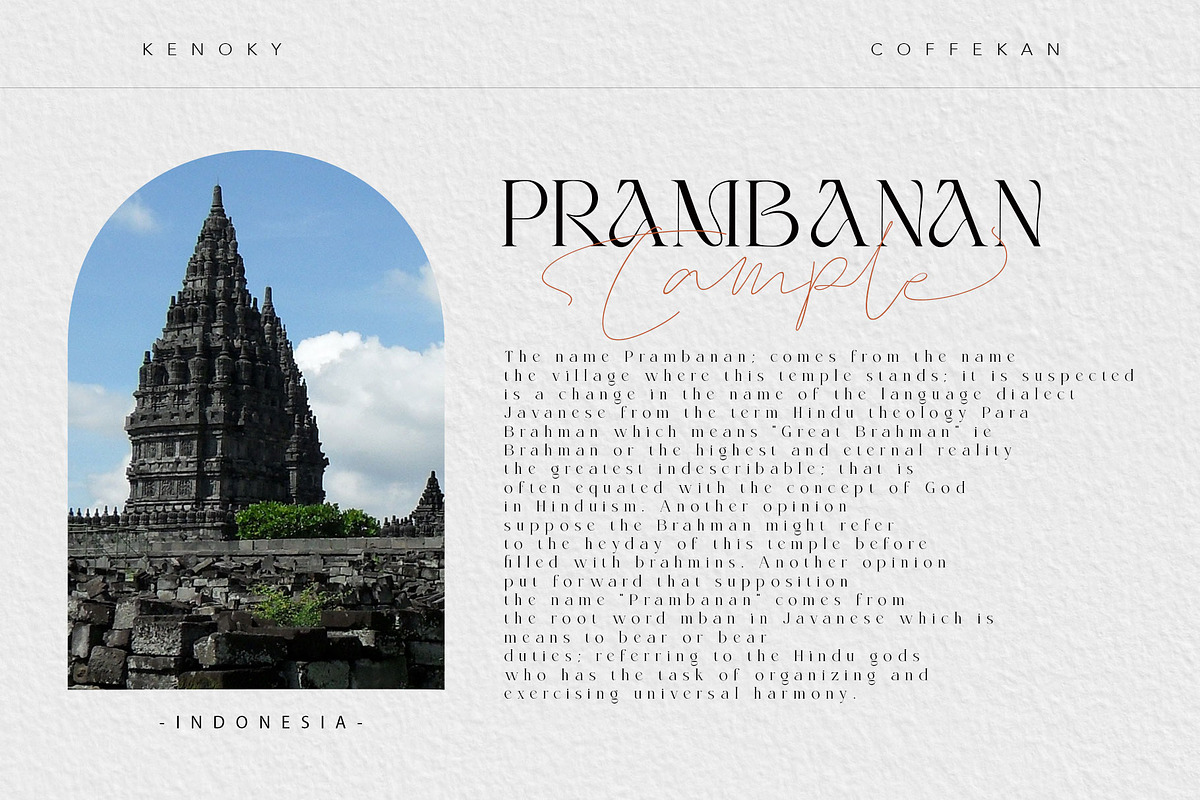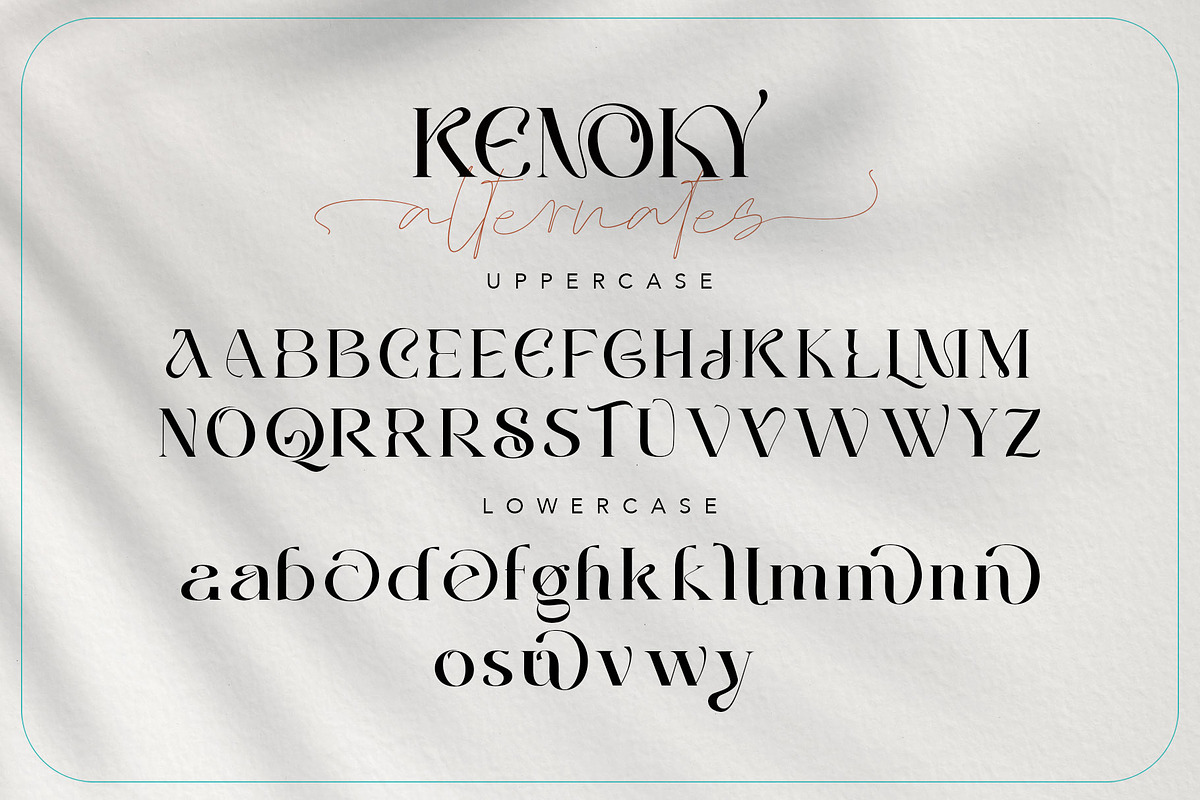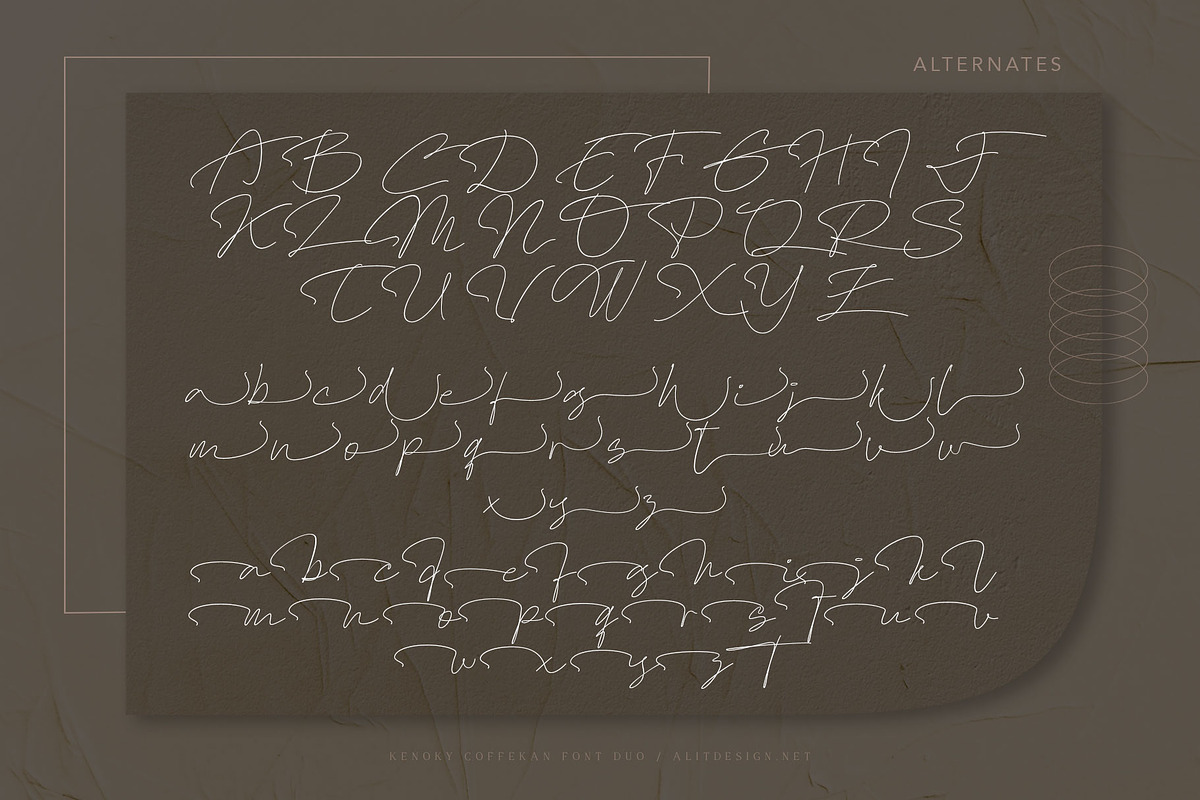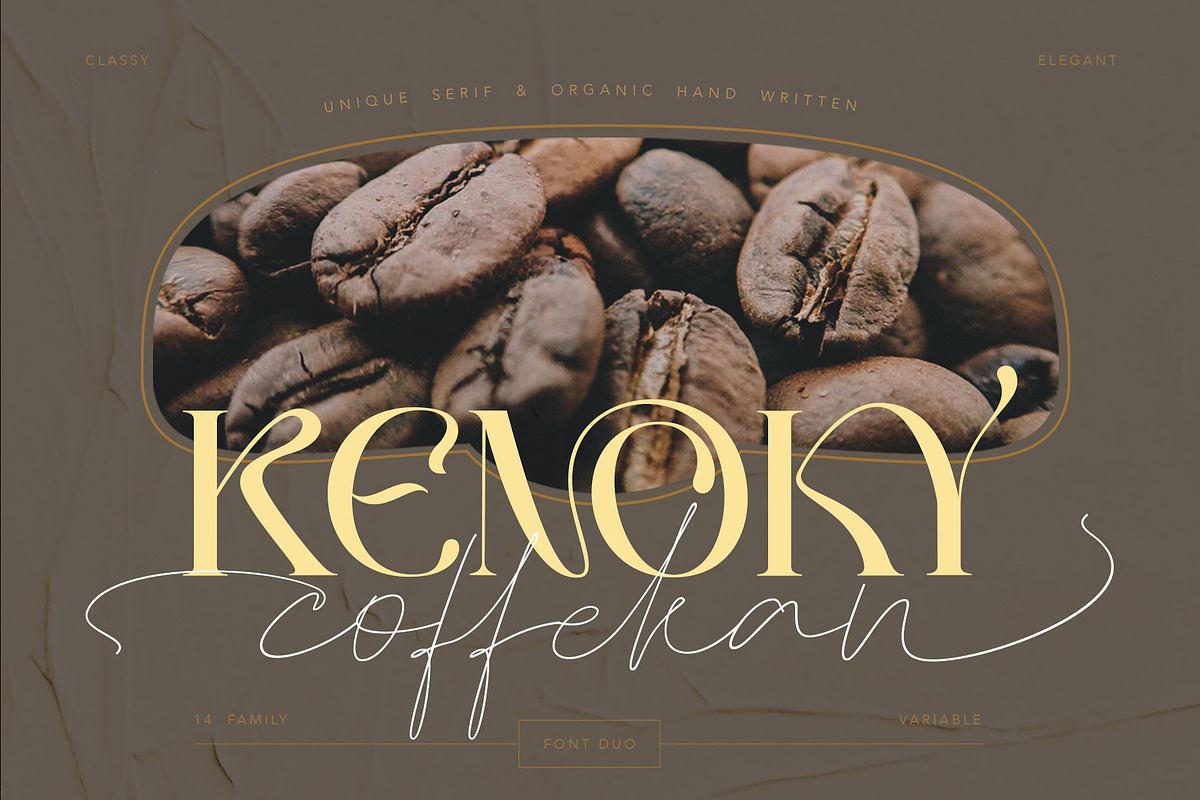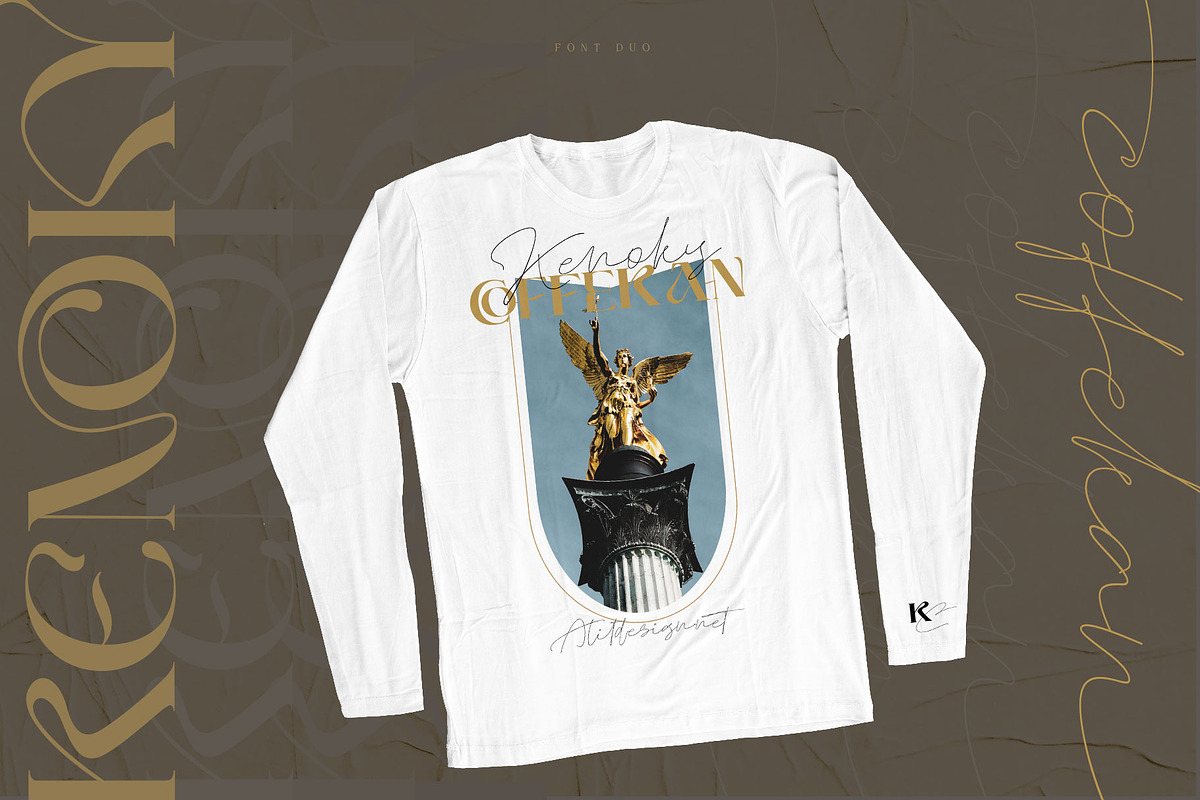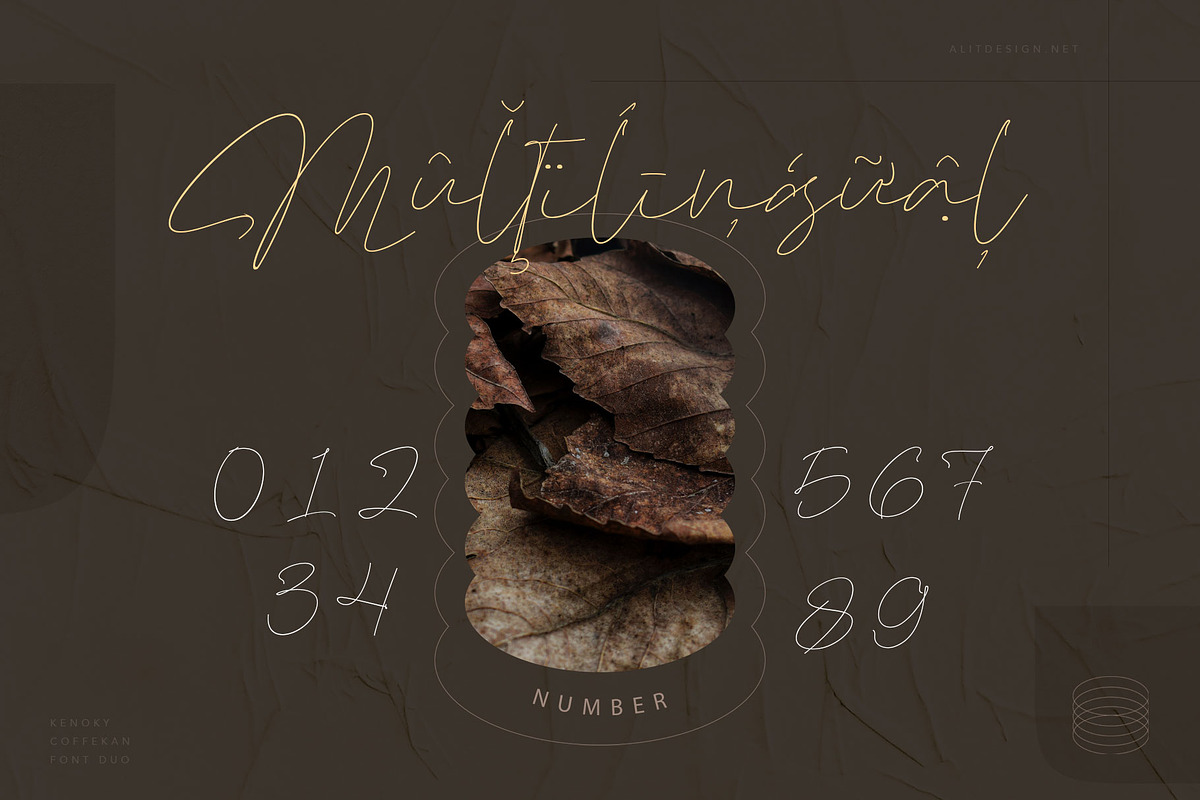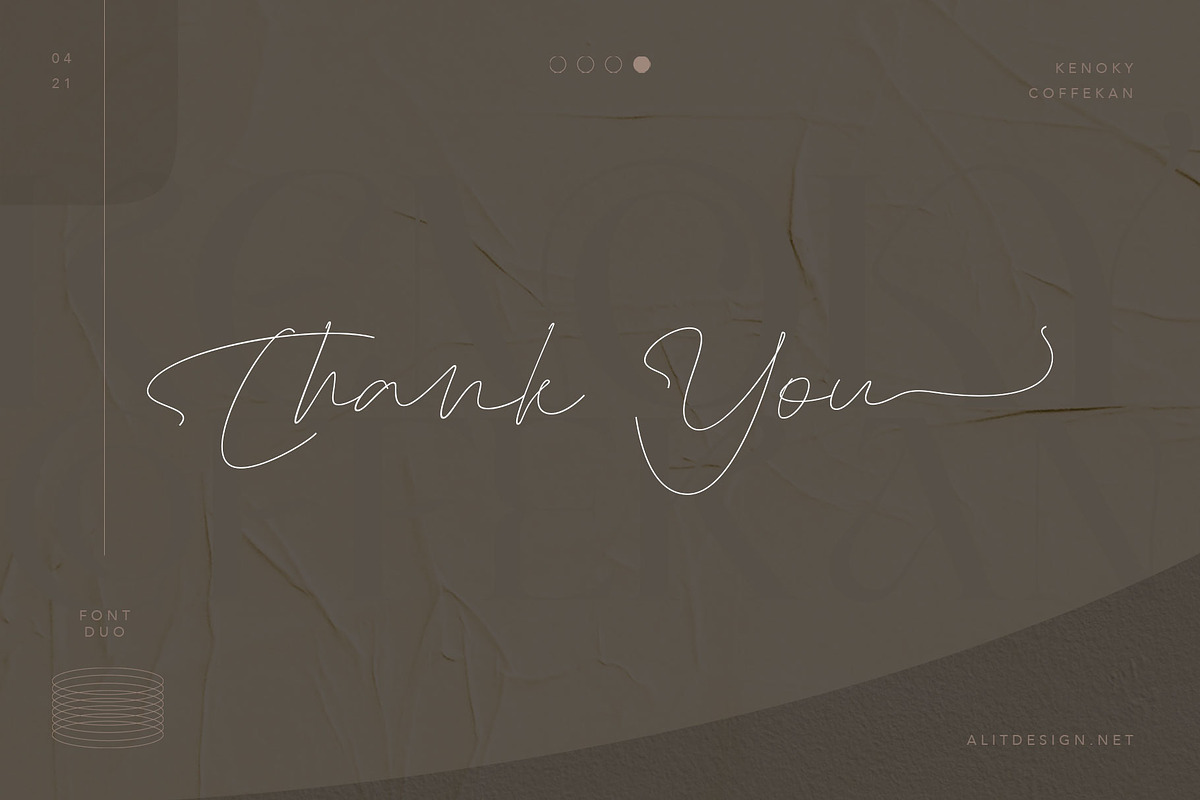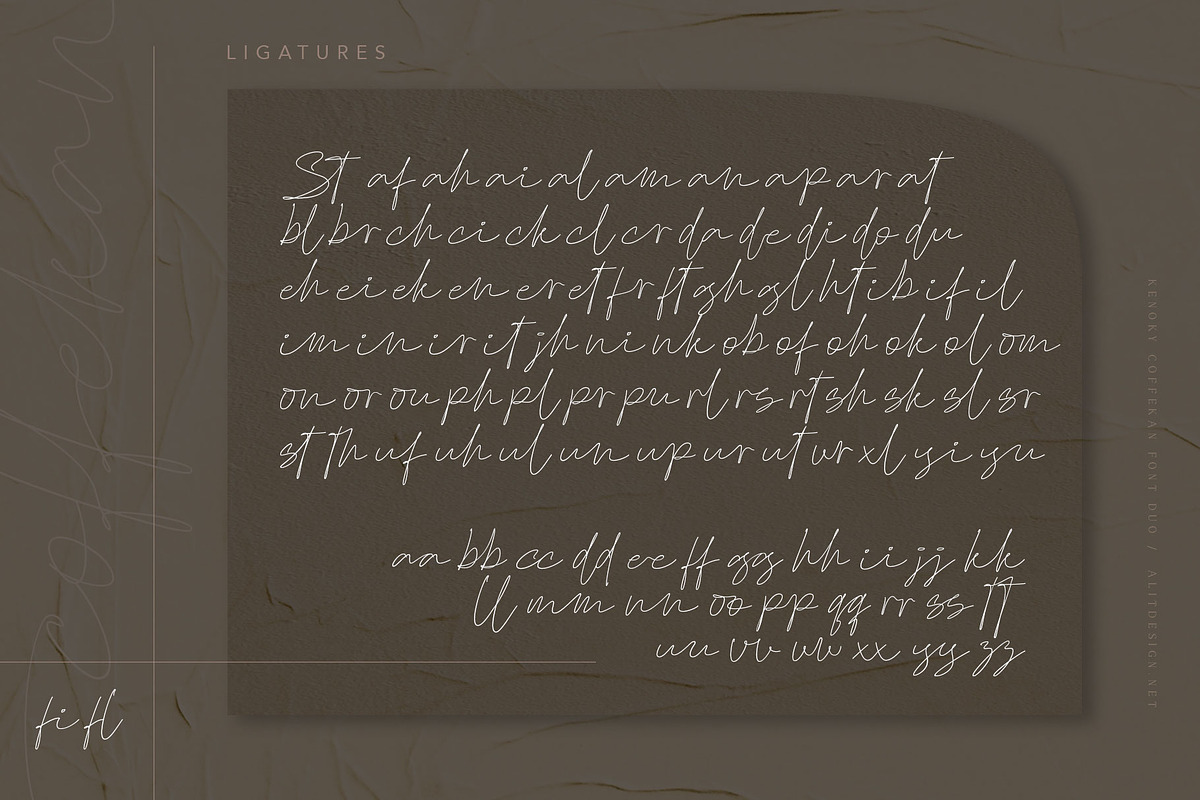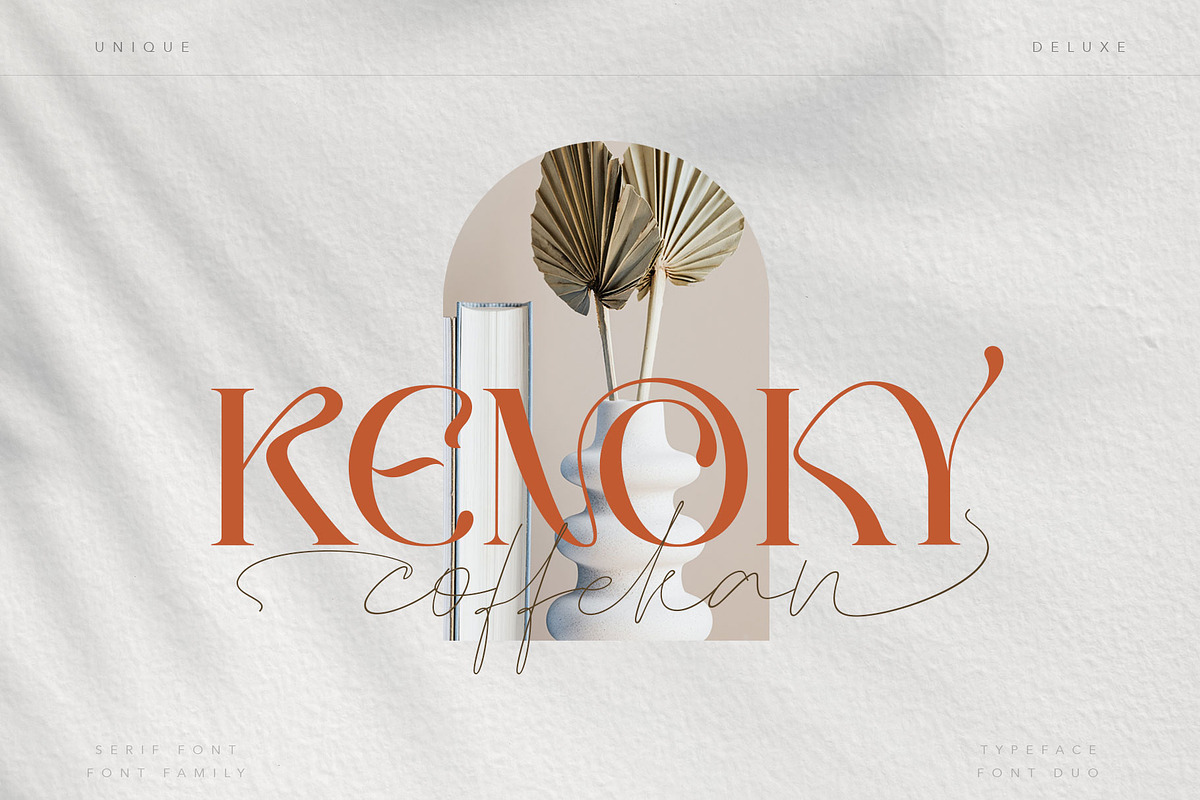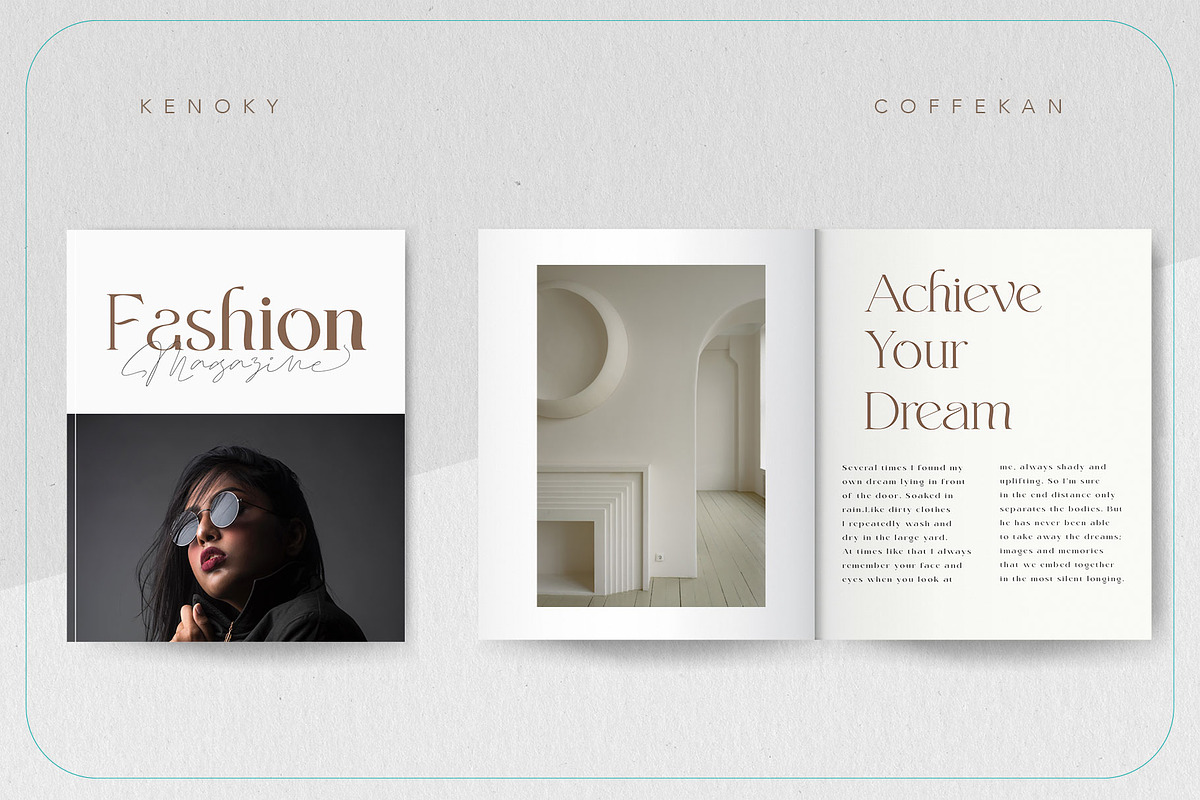
Kenoky Coffekan
Introducing KENOKY Coffekan font duo.
Unique and fantastic duo fonts combined or they stand alone.
KENOKY font family consists of 14 families, from Thin to Heavy style. The elegant modern font creates a unique design and is sure to steal the eye of the design target audience. Besides being unique, the KENOKY font also has a luxury simple character that makes the design charming and luxurious.
The Coffekan font is a signature script that has cool strokes. The line shape of Coffeekan is inspired by a unique monoline style. In addition, Coffeekan has an altenate ligature that looks natural and not stiff.
Combining the two KENOKY and Coffekan fonts will create a design that is charming, unique, elegant and cool. you can see from the design preview.
These two fonts are perfect for designs with the concept of elegant, luxury, romance, fashion and so on.